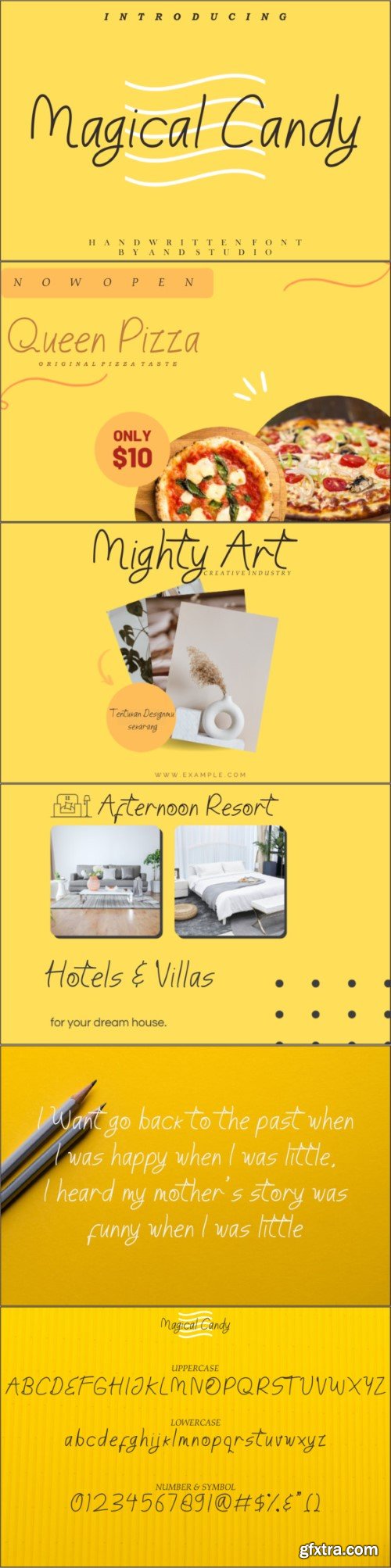
魔法糖果字体
Magical Candy is a flowing handwritten font, described by an elegant touch, perfect for your favorite projects. Fall in love with its incredibly distinct and timeless style and use it to create spectacular designs!